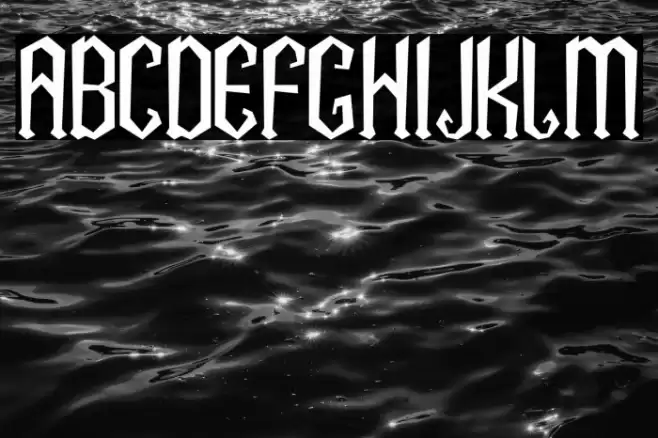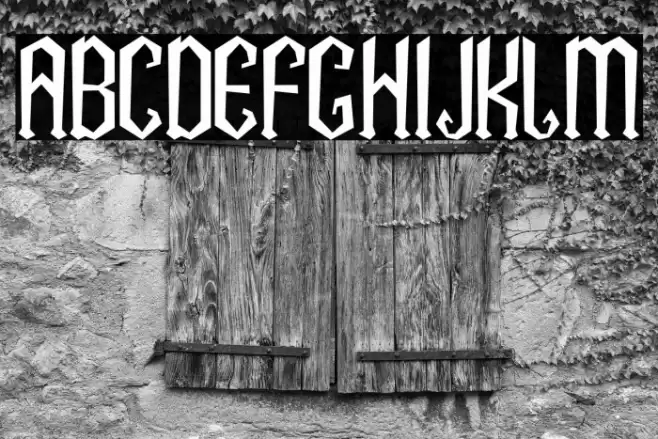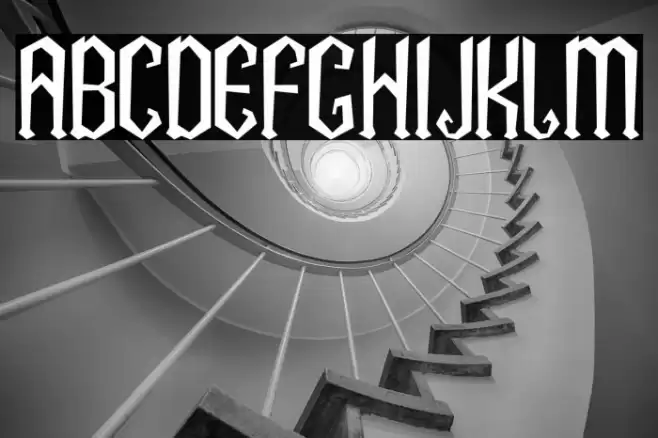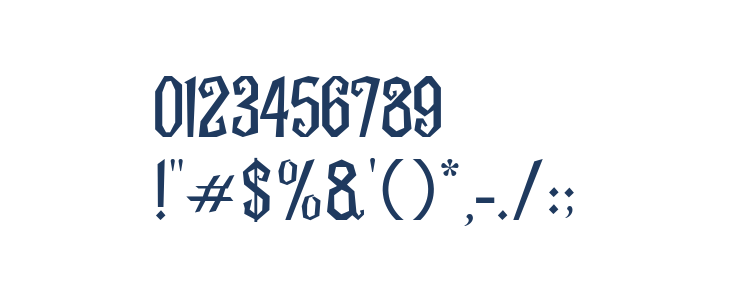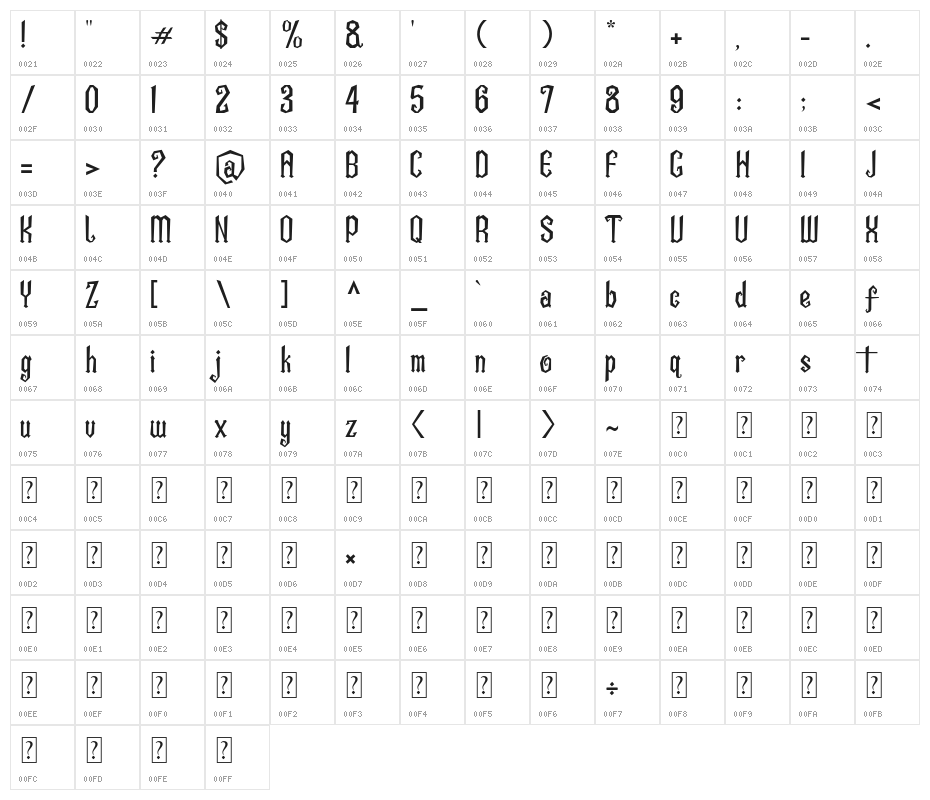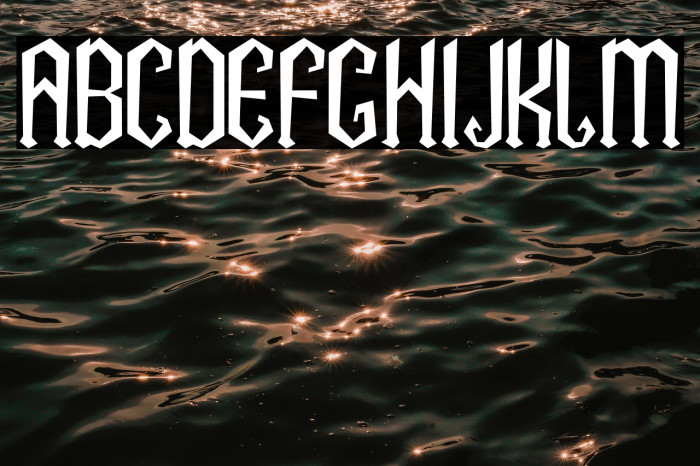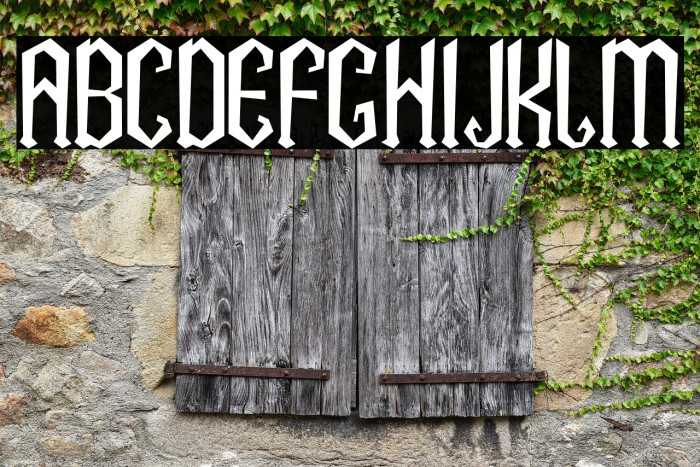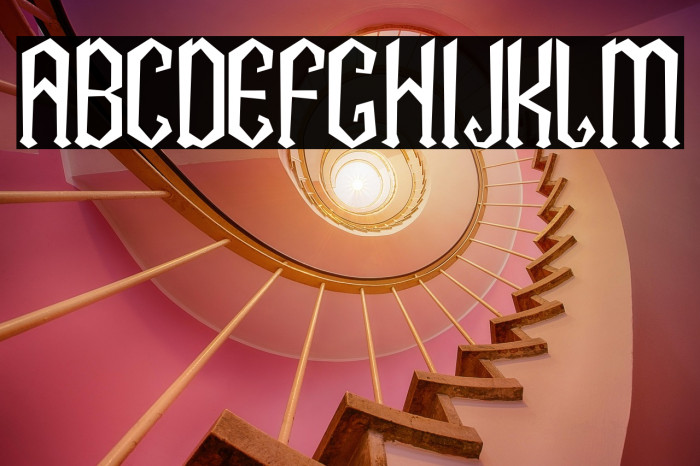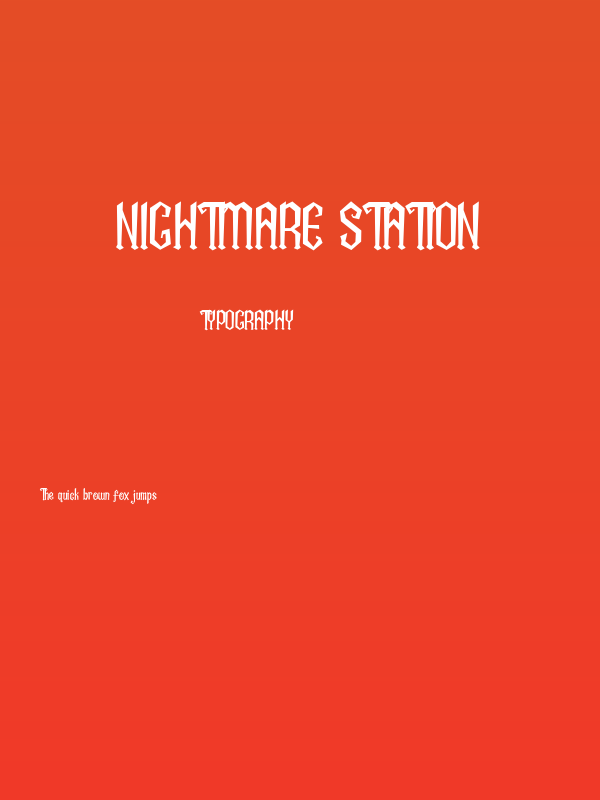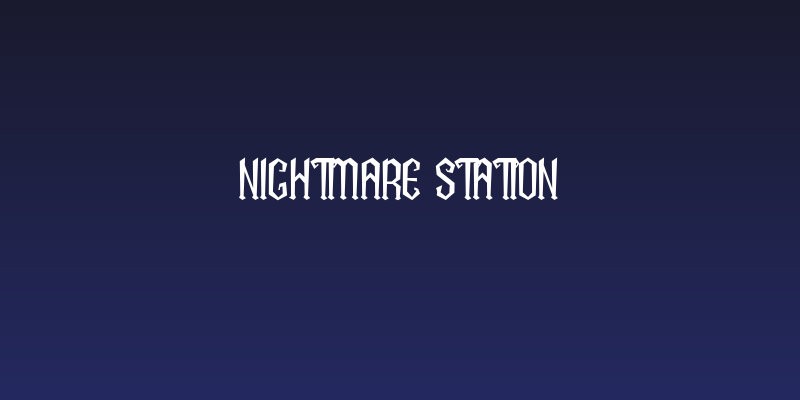
Nightmare Station Font
Nightmare Station Description
This font features a bold and edgy design with sharp, angular lines and a gothic influence. The uppercase letters are tall and narrow, with pointed serifs and a distinct medieval flair. The lowercase letters maintain the same sharpness, creating a cohesive look across the alphabet. Numbers are equally stylized, with a consistent angular theme. Special characters are designed to match the overall aesthetic, making this font ideal for creating a dramatic and intense visual impact. The unique style is reminiscent of classic horror or fantasy themes, making it suitable for projects that require a bold and striking appearance.
A bold, gothic-inspired font with sharp, angular lines and a dramatic style from Uncategorized fonts.
- Font: Nightmare Station
- Proposed Projects: Ideal for horror-themed designs, fantasy book covers, movie posters, and video game graphics.
- Overall Style: Gothic, Dramatic